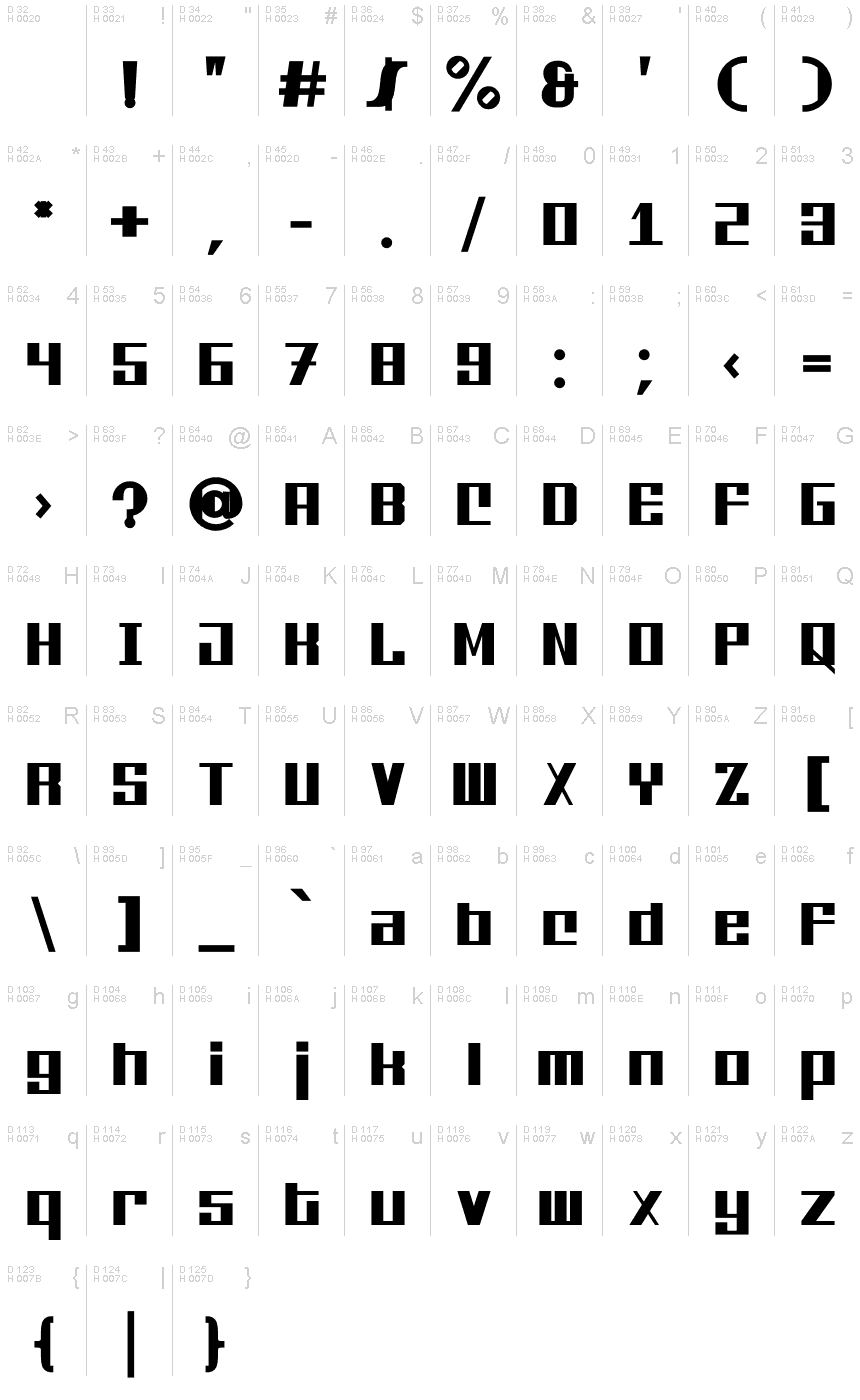
Wheeler Regular
Wheeler, the bold and expanded display font designed by Mans Greback, is the perfect choice for projects that require a modern, technological look. With its straight lines and sleek curves, Wheeler is ideal for creating attention-grabbing headlines, logos or branding materials. Its boldness makes it stand out on posters or billboards while its expanded width allows for maximum impact in digital media such as websites or social media graphics. Whether you're designing an app interface or creating a futuristic packaging design, Wheeler's techno style gives your project an edgy and contemporary feel that is sure to impress.